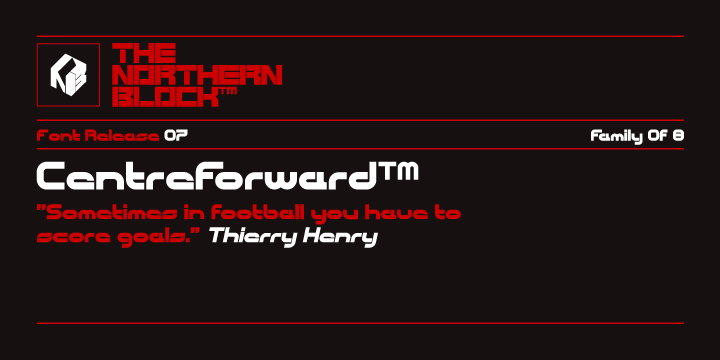
• CentreForward™
CentreForward is an 8 font family consisting of 4 weights with italics.
A smooth modular font that draws on ideas observed in the 1982 Football World Cup.
Influential players: Paolo Rossi, Socrates, Zico & Tardelli.